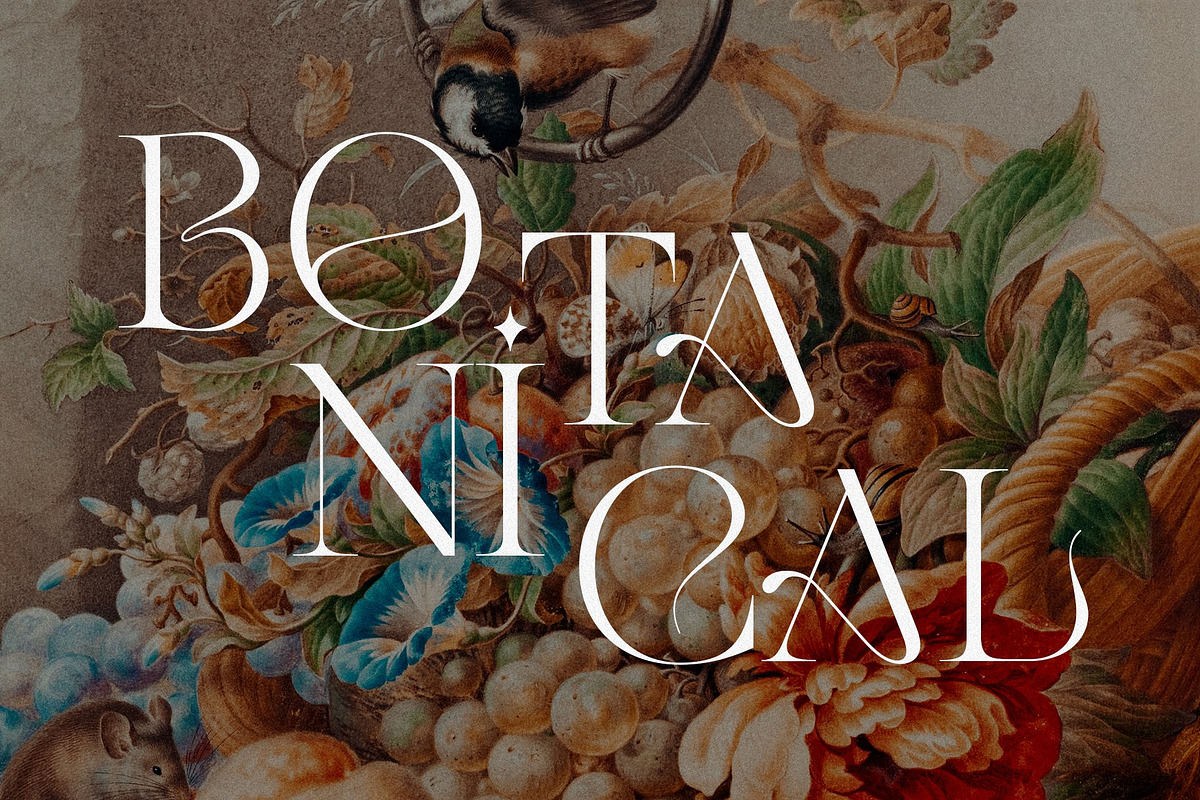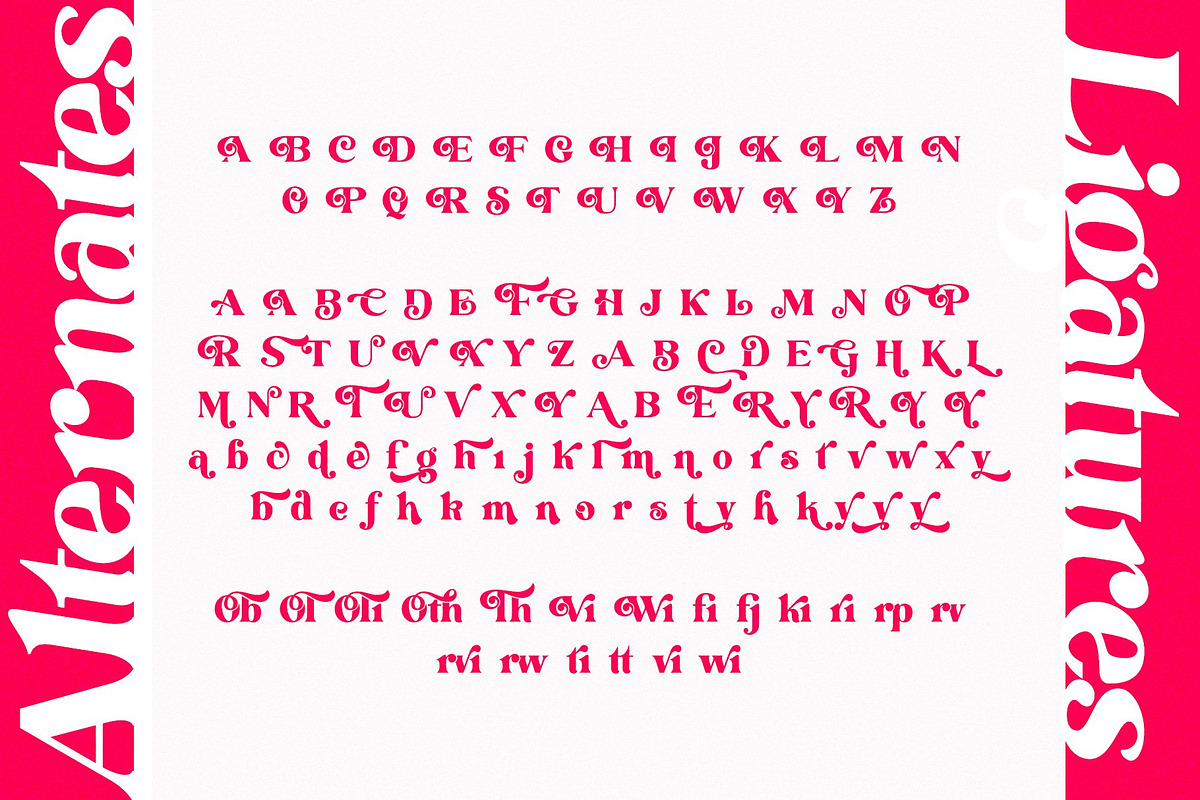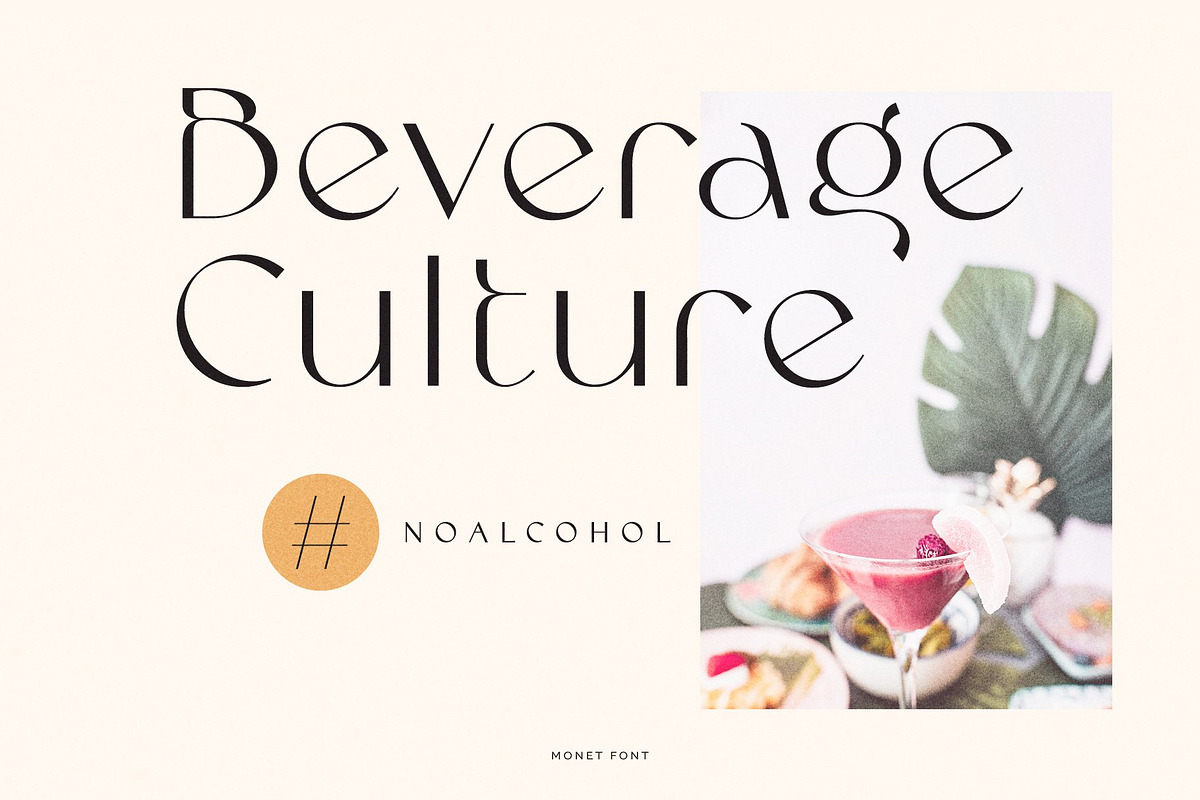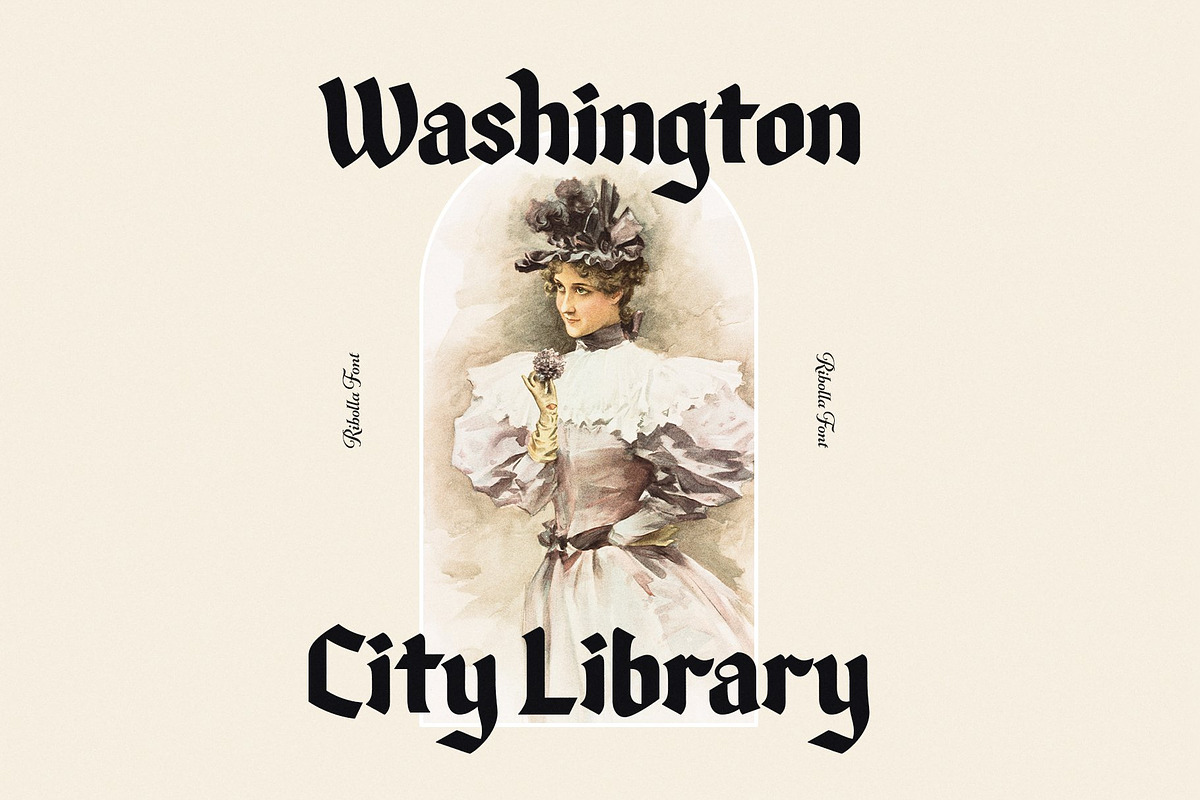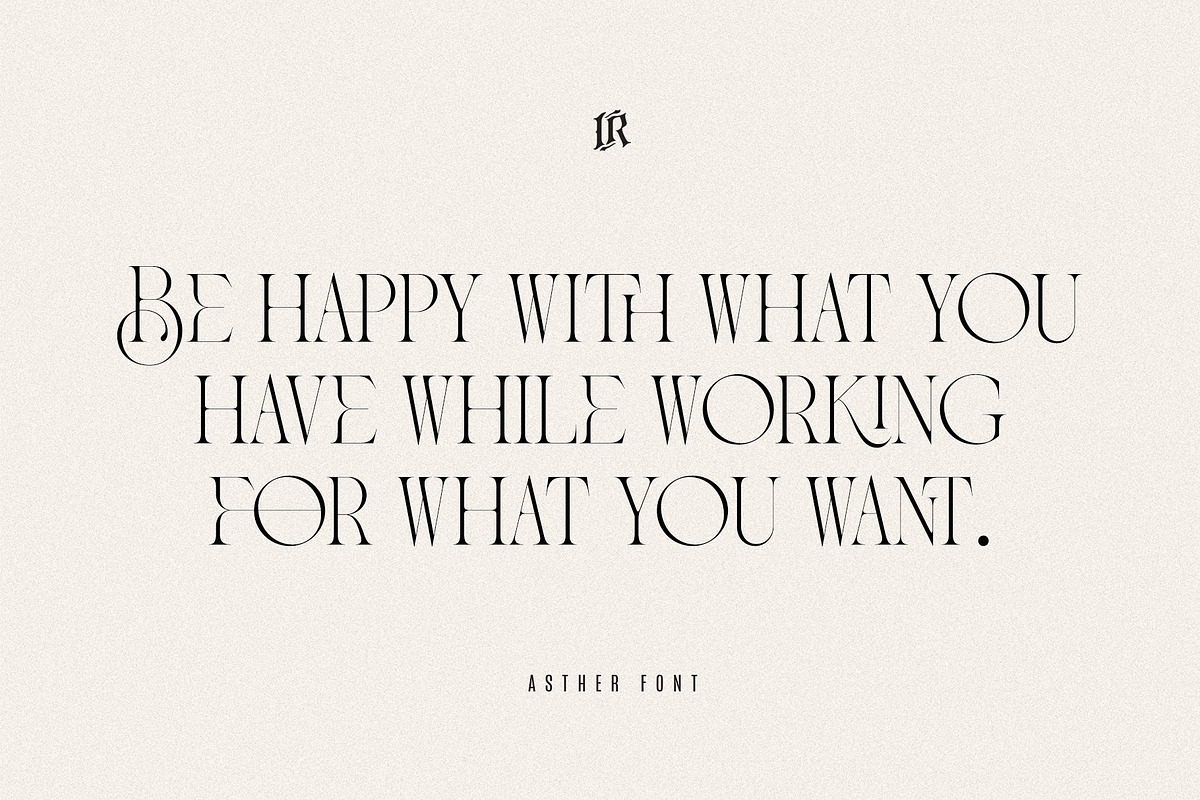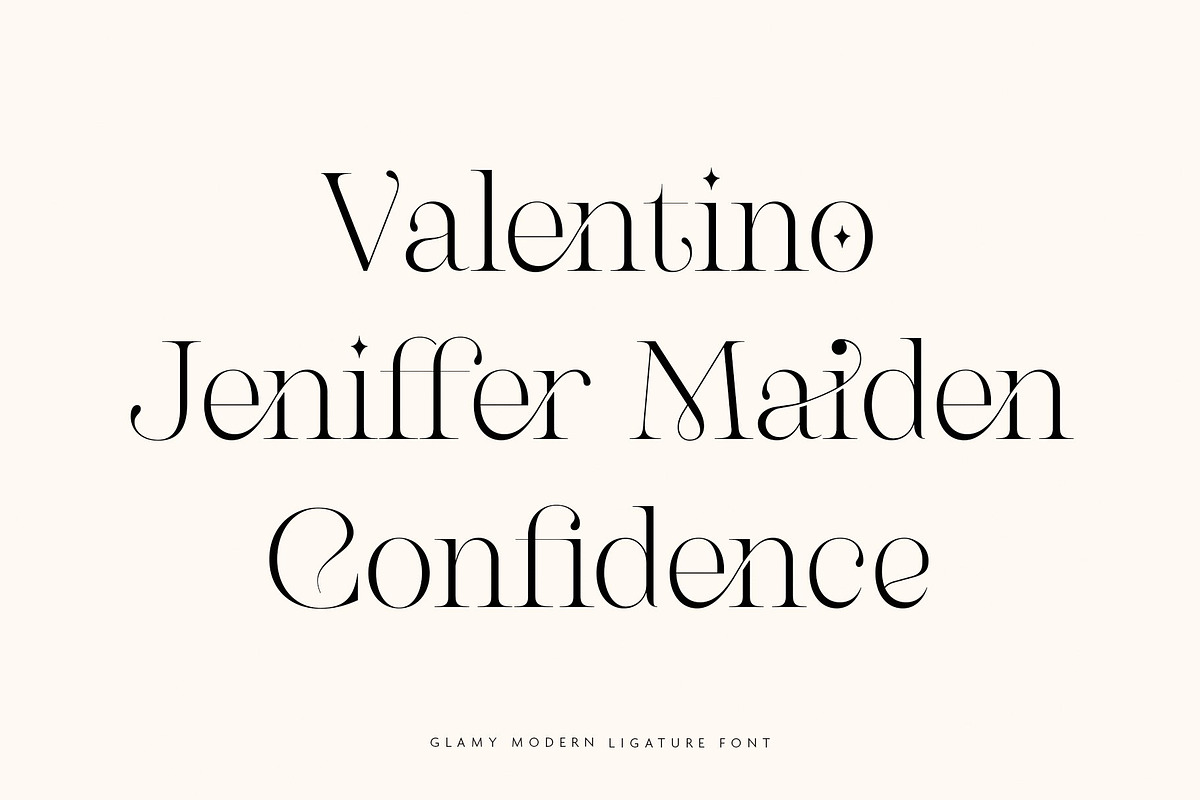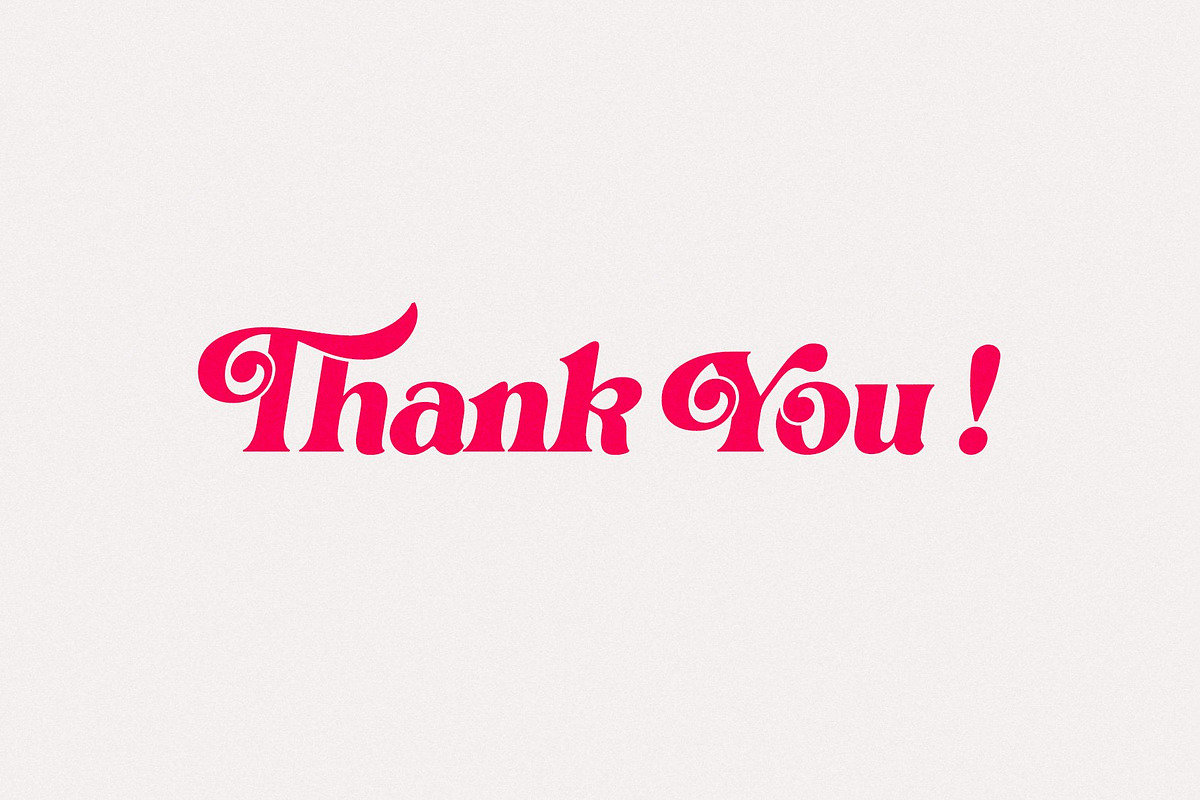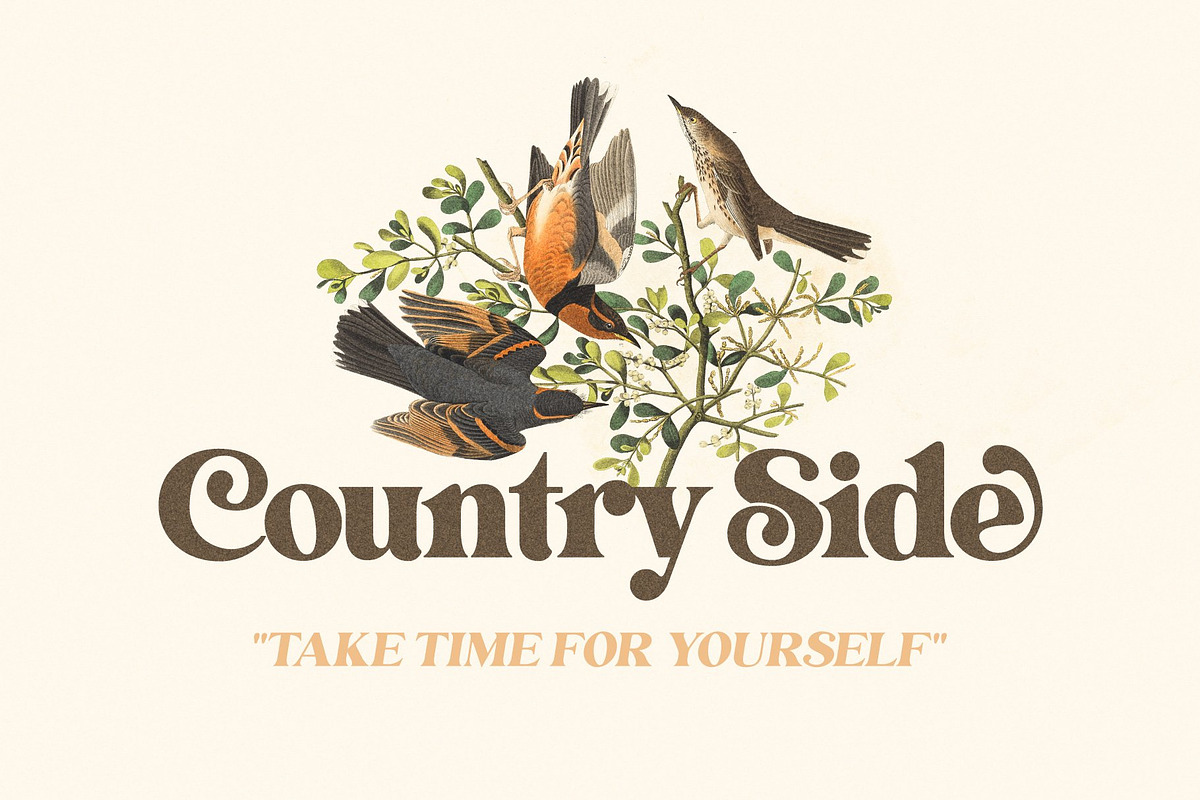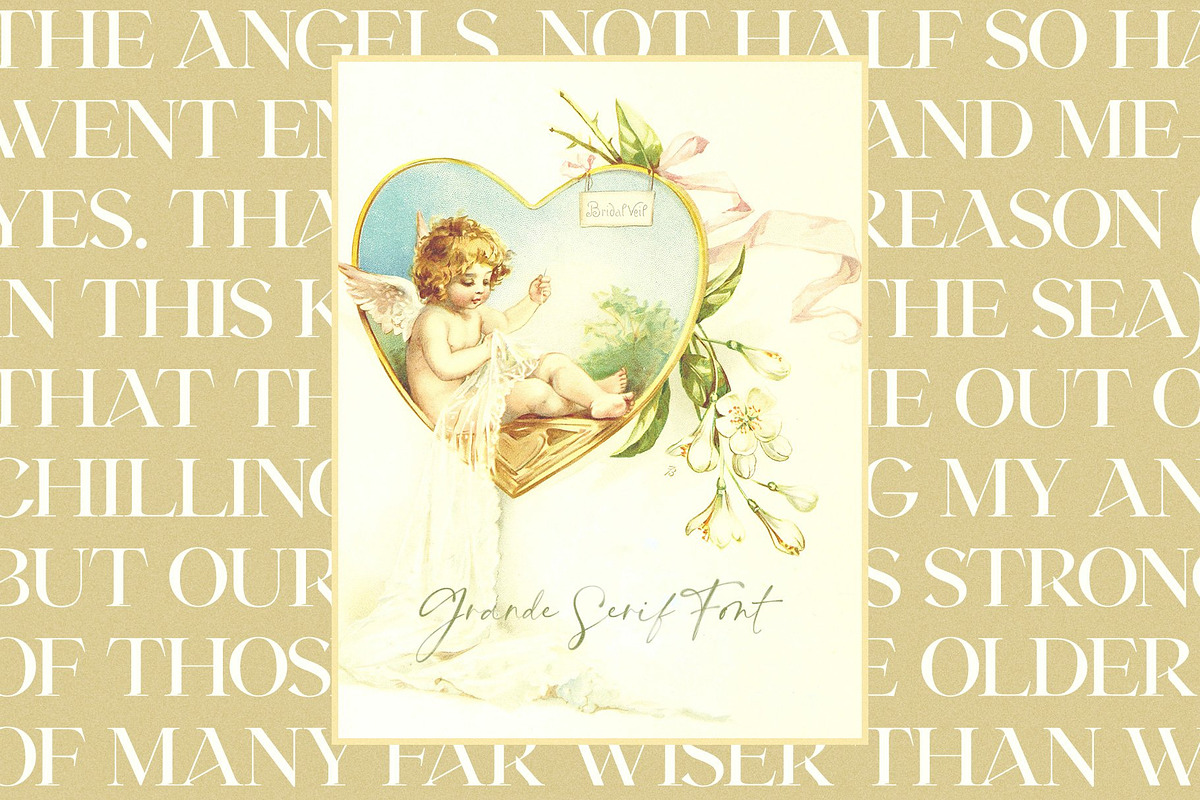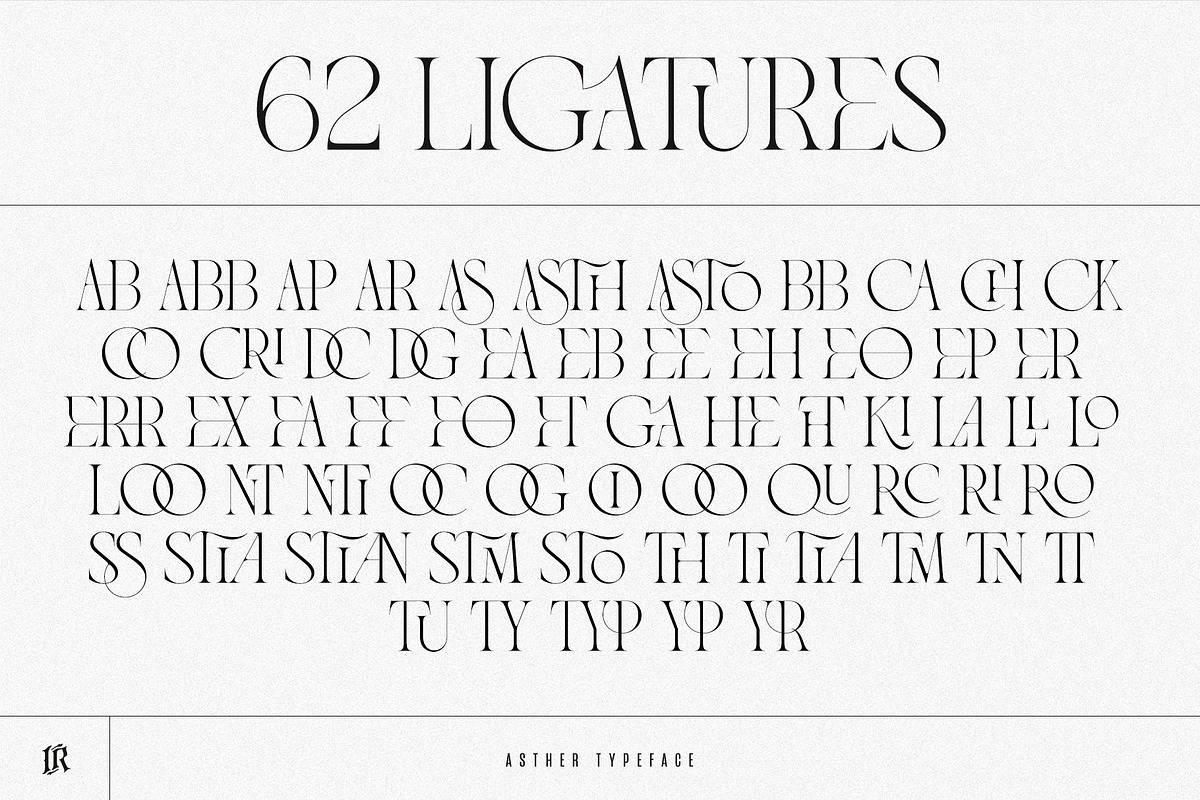
The Modern Typography Bundle
This bundle contains my 10 best selling unique typefaces - typefaces with dozens of unique ligatures and alternates.
Olive Village - Vintage Font https://crmrkt.com/pPgkaz
Algiers - A Modern Sans Serif https://crmrkt.com/JdVWDM
Grande https://crmrkt.com/JKJp21
Ribolla - Blackletter Font https://crmrkt.com/W0bklW
Hanesy - Modern Serif Font https://crmrkt.com/BJqk2D
Monet - Vintage Font https://crmrkt.com/qP4ka1
Giovany - Retro Font https://crmrkt.com/RK57P4
GLAMY - Ligature Rich Serif https://crmrkt.com/0vO5G4
Asther - Fashion Font https://crmrkt.com/0vk82Q
Siena Typeface https://crmrkt.com/rP9zJP